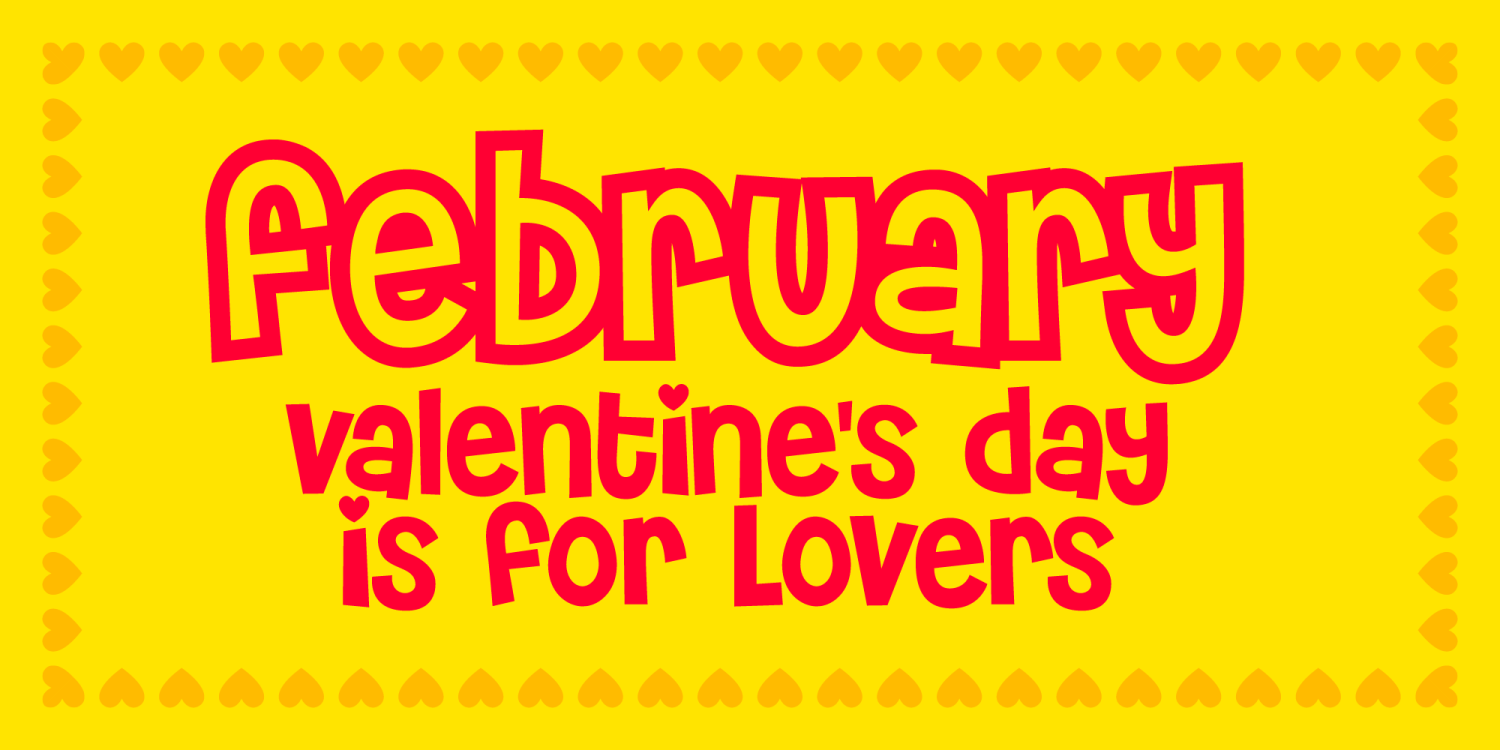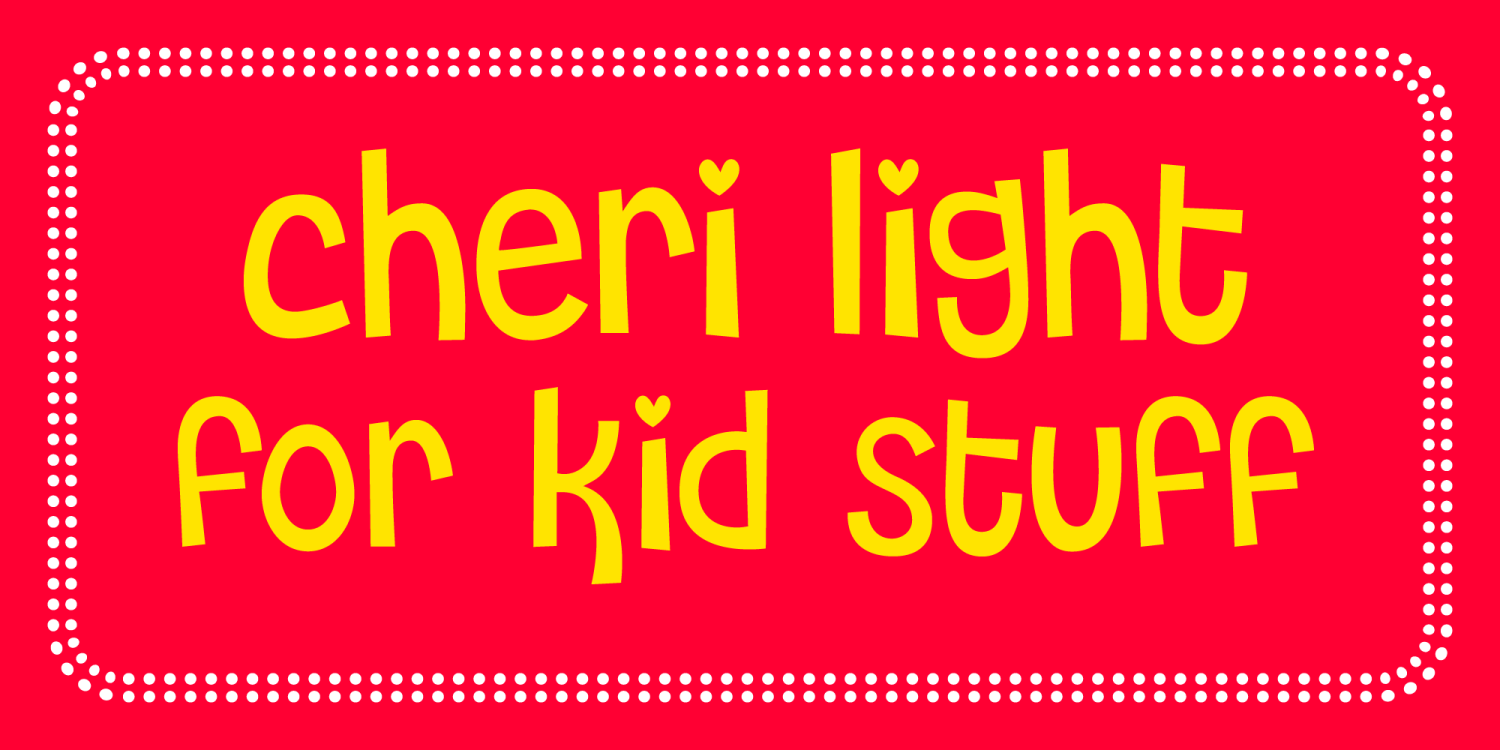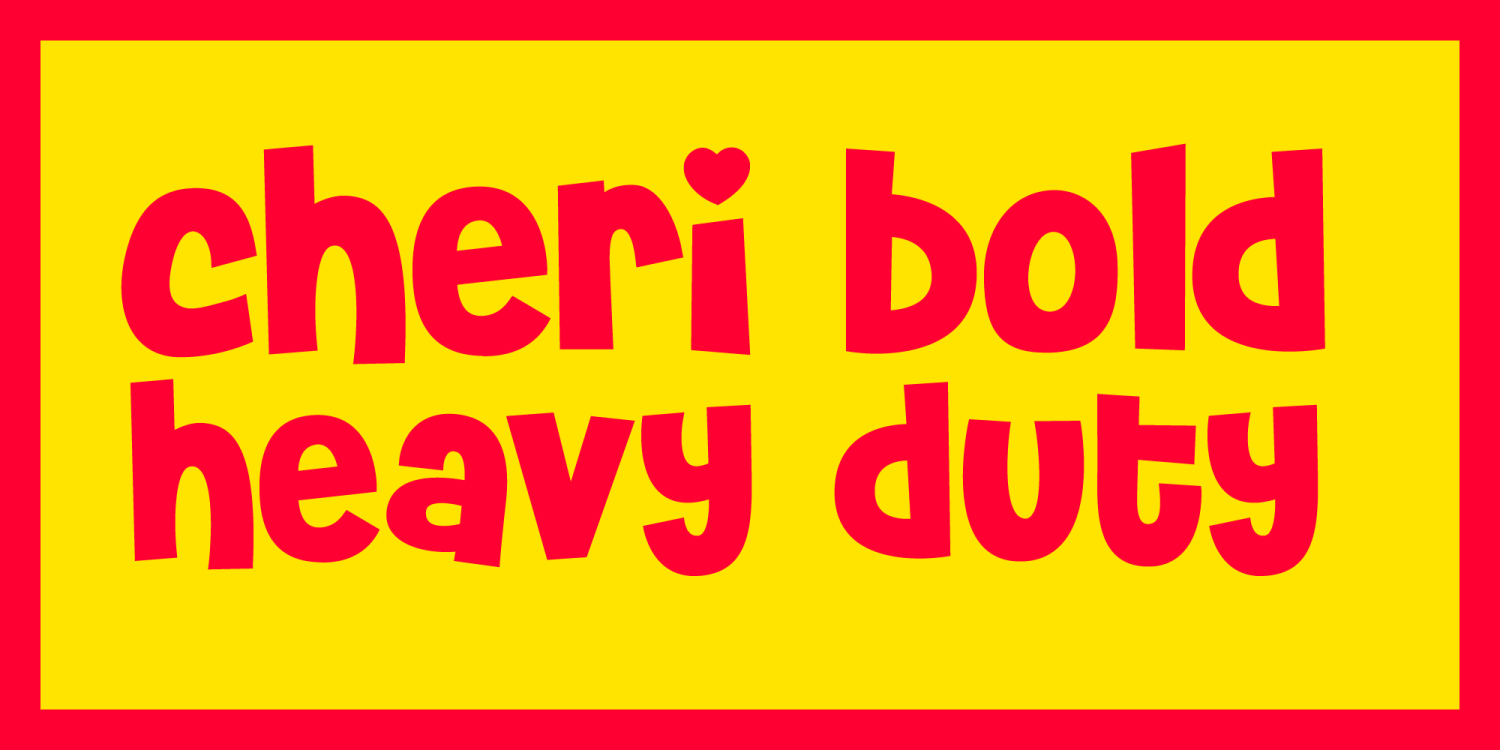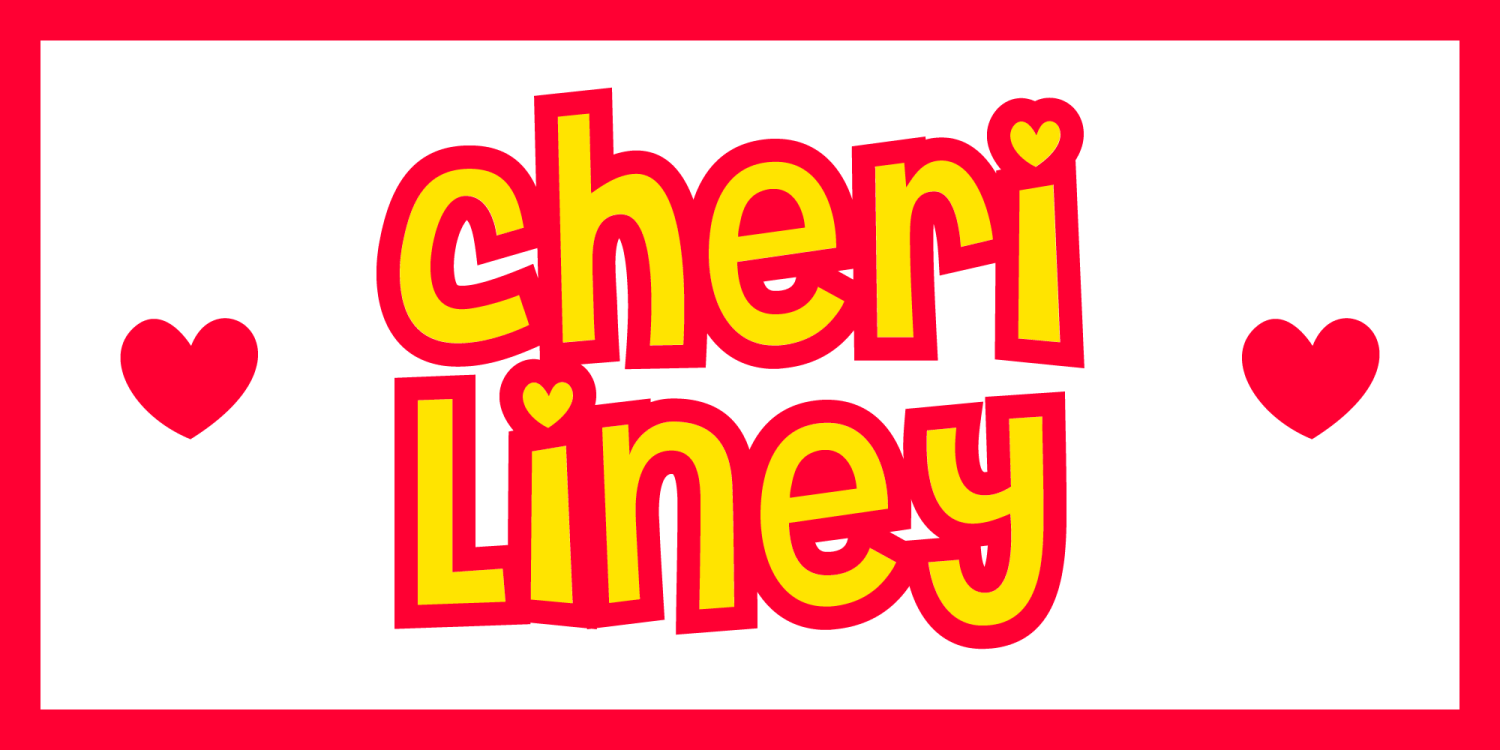
About Cheri
Introducing "Cheri," the font that wears its happiness on its sleeves, or rather, on its dots! This bubbly typeface is like a cheerful friend who sprinkles love and joy wherever it goes. Every "i" in Cheri comes adorned with a tiny…